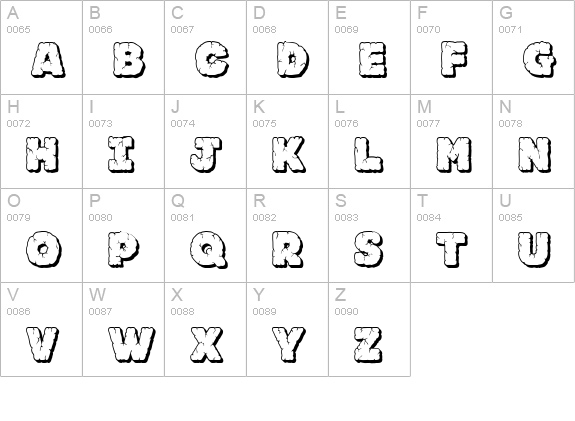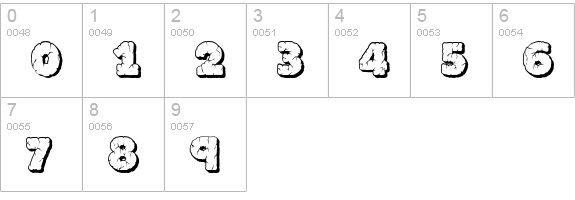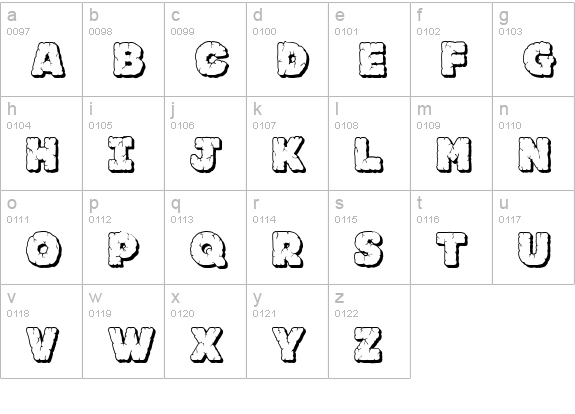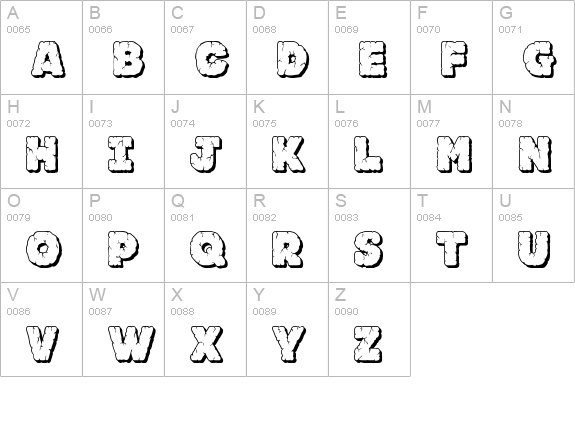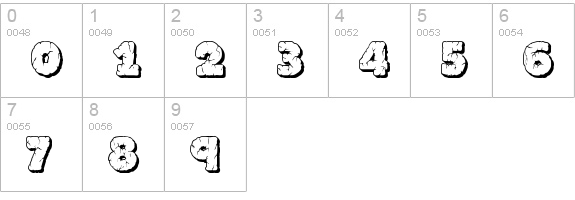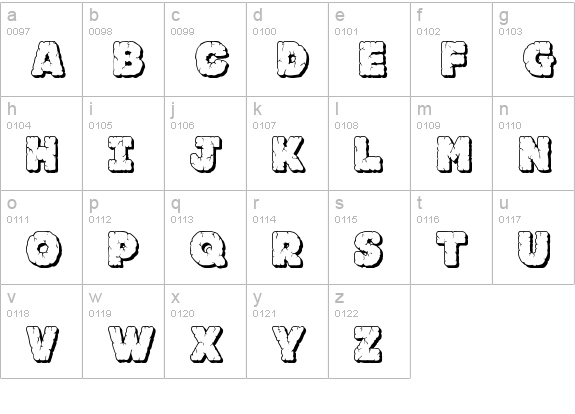
JFRockOutcrop Font Details
JFRockOutcrop font is a bold and dynamic typeface that exudes strength and power. With its rugged and jagged edges, it captures the essence of a rocky outcrop, making it perfect for designs that require a touch of intensity. This font is not only visually striking, but it also offers a level of versatility that allows it to be used in a variety of design projects. Whether you are creating a logo for a rock band, designing a poster for a thrilling adventure movie, or crafting a bold headline for a magazine spread, JFRockOutcrop font will undoubtedly make a bold statement. What sets JFRockOutcrop font apart from other fonts is that it is freely available to download at FontsMarket.com. This means that you can easily access this powerful typeface without any cost, making it an excellent choice for designers on a budget. With JFRockOutcrop font, you can unleash your creativity and bring your designs to life with its unique and eye-catching aesthetic. Its distinctive style will captivate your audience and leave a lasting impression. Embrace the boldness of JFRockOutcrop font and elevate your design projects to new heights. Download it for free at FontsMarket.com and let your creativity rock!